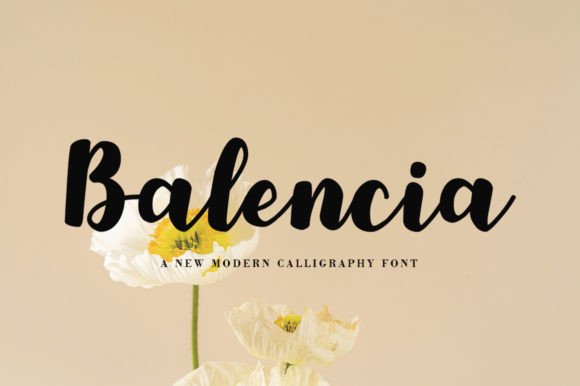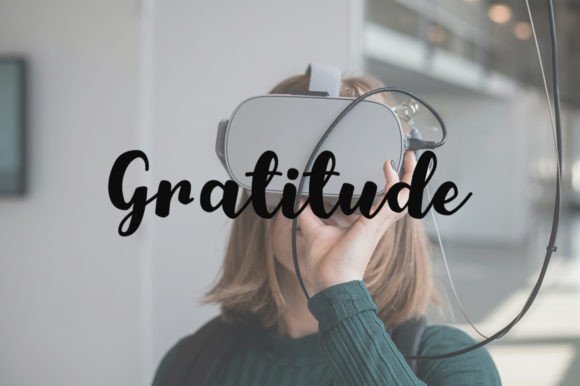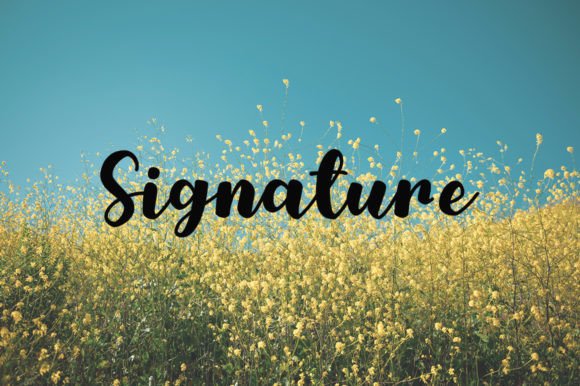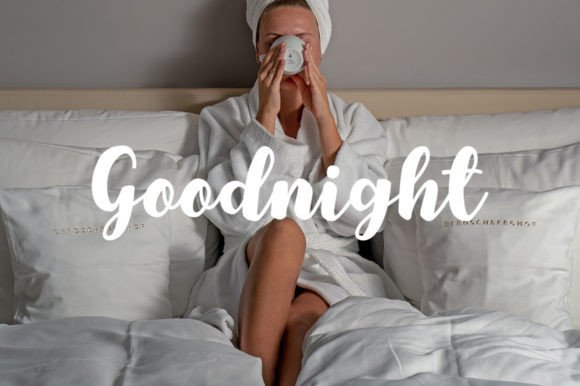
Balencia
About Balencia
Balencia is a delicate, elegant, and flowing handwritten font. It has beautiful and well-balanced characters and as a result, it matches a wide pool of designs.